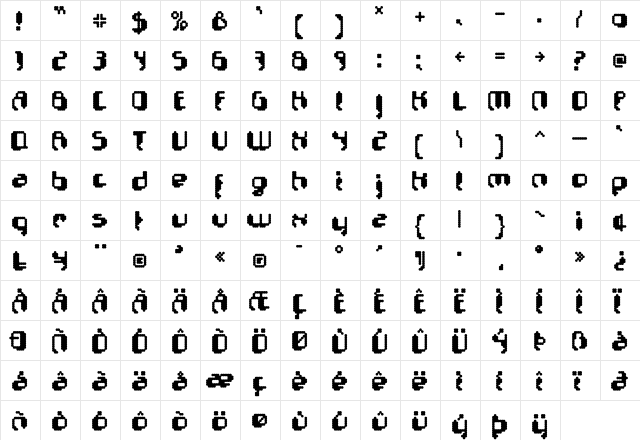
Chemo Bubble Font Preview
Chemo Bubble
Design Context for Chemo Typeface
Chemo has an approachable, lighthearted character — its loose, expressive forms are well-suited to children's content, casual branding, and fun-first design.
Font Pairing: Pairs well with a rounded or humanist sans for body copy, maintaining the friendly tone without relying on Chemo to carry extended reading.
Pro Tip: Avoid using Chemo for long passages of text — it works best for headlines, labels, and short calls to action.